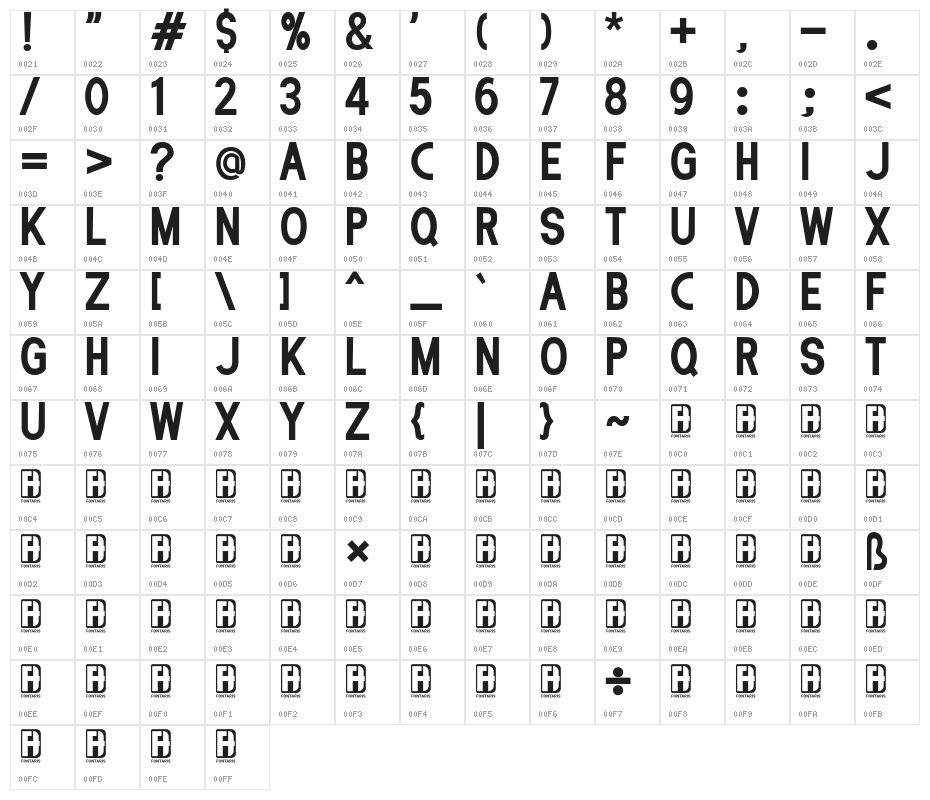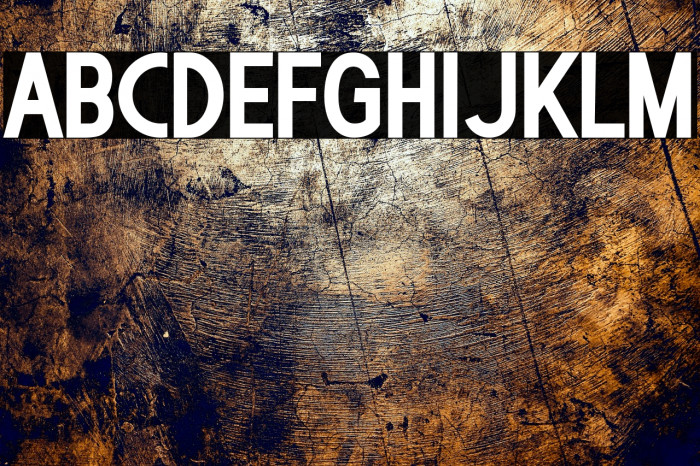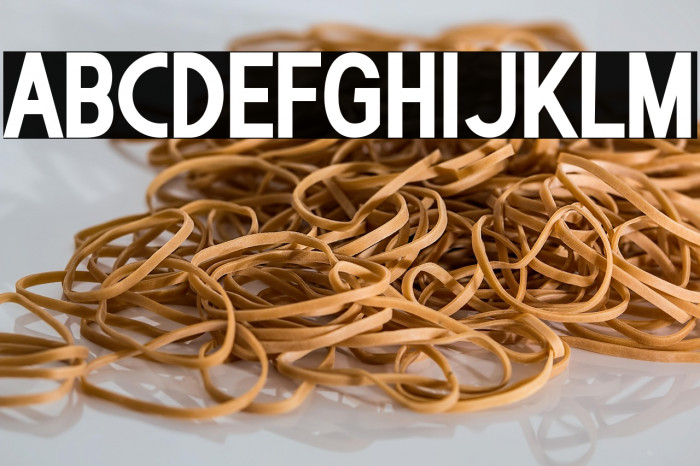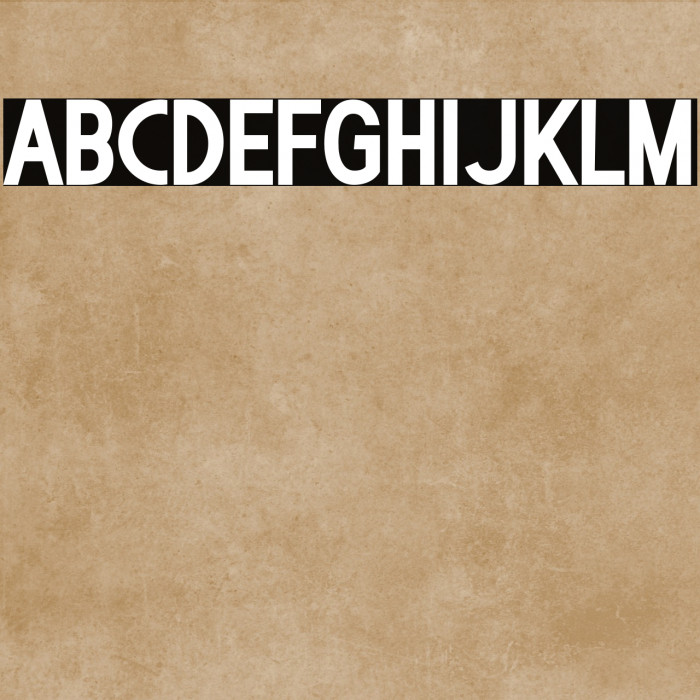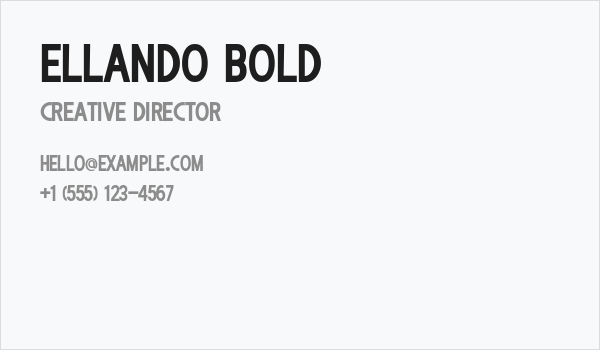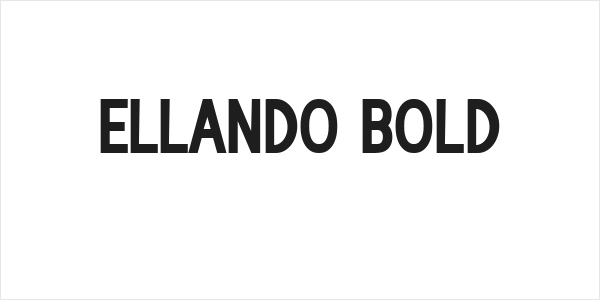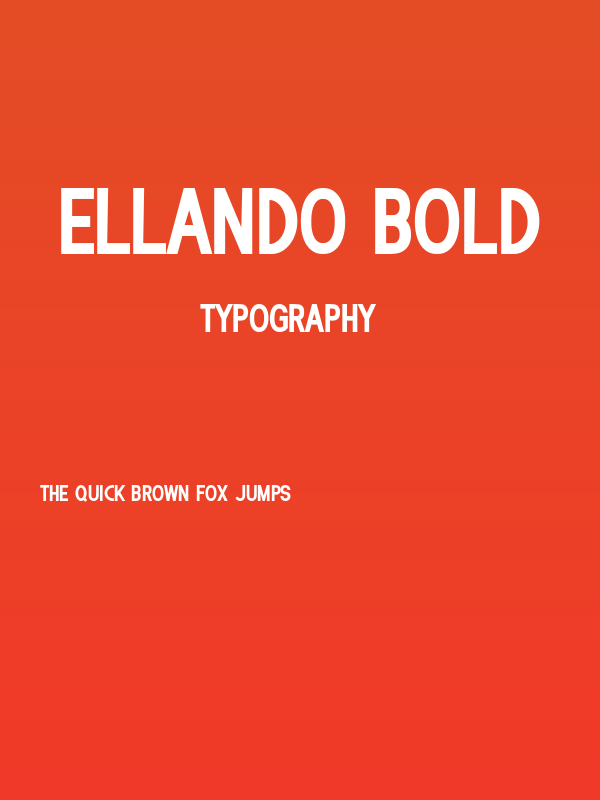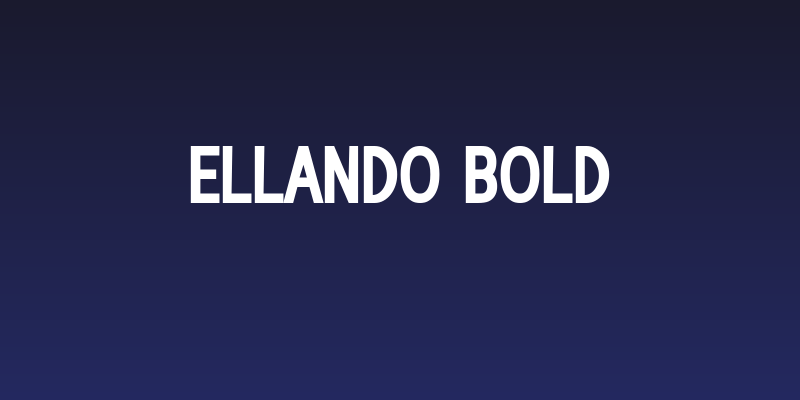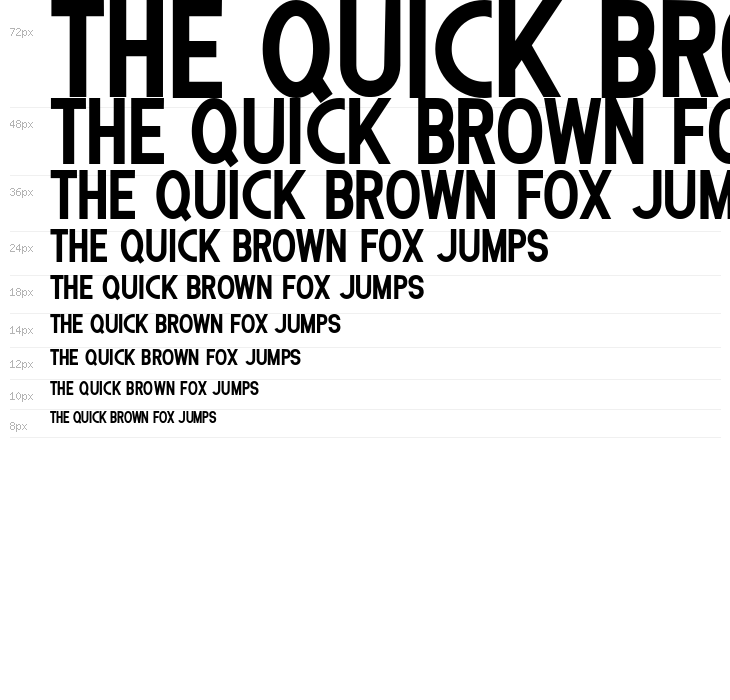
Ellando Bold Font
Ellando Bold Description
This font exhibits a bold and assertive style, characterized by its strong, thick strokes and clean lines. The uppercase and lowercase letters are well-proportioned, offering a sense of balance and uniformity. The numerals are equally robust, ensuring clarity and readability. The special characters are designed with the same boldness, making them stand out effectively. This font's design is straightforward yet impactful, making it suitable for various applications where attention is needed.
| Proposed Projects | Ideal for headlines, posters, branding materials, and advertising campaigns where a strong visual impact is desired. |